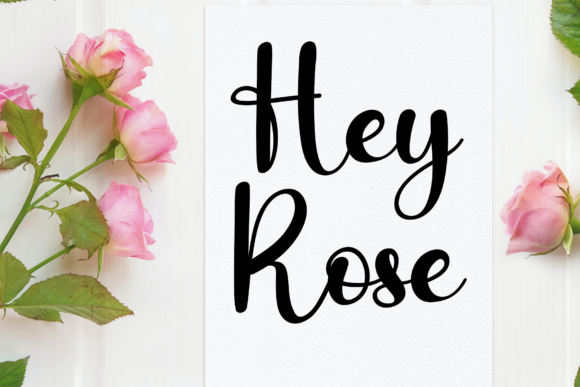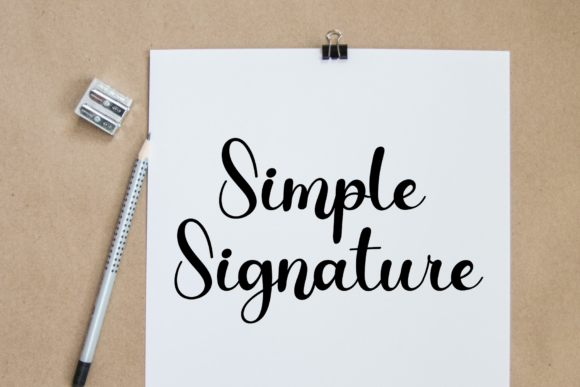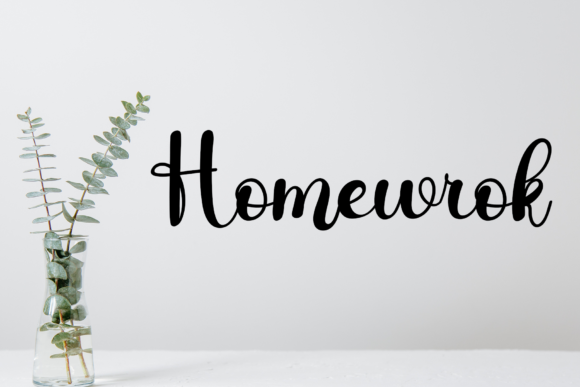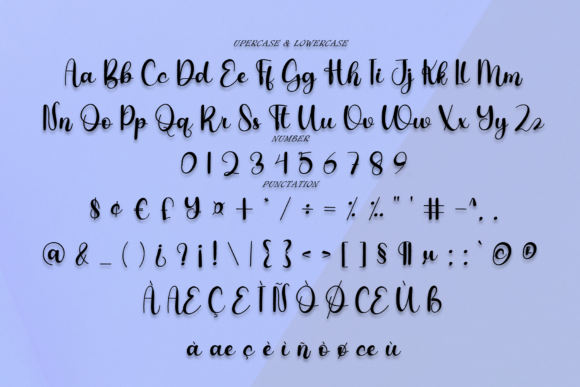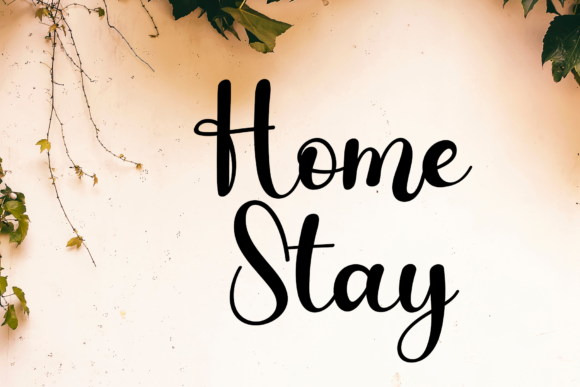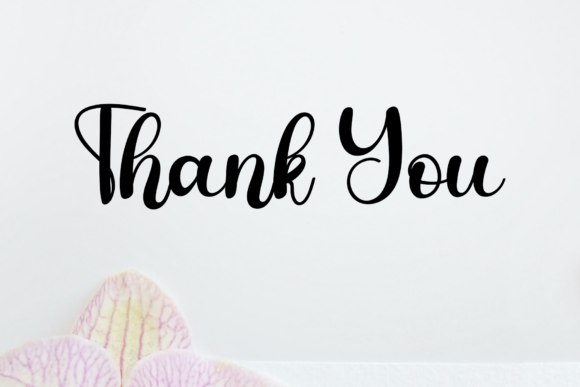
Easter Font: Elevate Your Designs with a Delicate Handwritten Style
Easter is a beautiful, delicate handwritten font that’s perfect for designers and crafters looking to add a touch of elegance and uniqueness to their projects. This versatile font is carefully crafted to bring a cool and distinctive design to various applications, including letters, invitations, food products, titles, and more.
What Makes Easter Font Special?
The Easter font boasts a range of characteristics that make it an excellent choice for designers seeking a distinctive and eye-catching style. Here are a few key features:
- Delicate Handwritten Style: Easter font is meticulously designed to mimic the elegance of handwritten script, bringing a personal and intimate feel to your designs.
- Versatility: Whether you’re creating invitations, labels for food products, titles for blog posts, or simply writing letters, Easter font adapts seamlessly to various design needs.
- Cool and Unique Design: In a world where generic fonts are common, Easter font stands out with its unique charm and character, ensuring your designs don’t go unnoticed.
Applications of Easter Font
The versatility of Easter font means it can be used across a wide range of projects. Here are some ideas to get you started:
- Invitations and Announcements: Use Easter font to create beautiful, personalized invitations for weddings, baby showers, birthdays, and other special occasions.
- Food and Beverage Branding: Add a touch of elegance to labels for gourmet foods, specialty teas, chocolates, and other edible delights.
- Blog and Website Titles: Stand out in the digital landscape with Easter font used for titles, headings, or even the entire content of your blog or website.
- Stationery and Journaling: Bring a personal touch to letters, journals, and diaries with the charming and delicate style of Easter font.
Tips for Using Easter Font Effectively
To make the most of Easter font, consider the following tips:
- Pair with Complementary Fonts: Combine Easter font with sans-serif fonts for contrast, or with other script fonts for a layered look.
- Adjust Size and Color: Experiment with different sizes and colors to emphasize certain words or phrases, adding depth to your design.
- Play with Textures and Backgrounds: Add an extra layer of interest by incorporating textures or subtle backgrounds that complement the delicate style of Easter font.
Easter font is a delicate handwritten font that brings a cool and unique design to the table, perfect for a variety of projects. Its versatility, elegance, and distinctive charm make it an excellent choice for designers and crafters looking to elevate their work. Whether you’re creating invitations, branding food products, or simply writing letters, Easter font is sure to add that special touch that sets your designs apart.